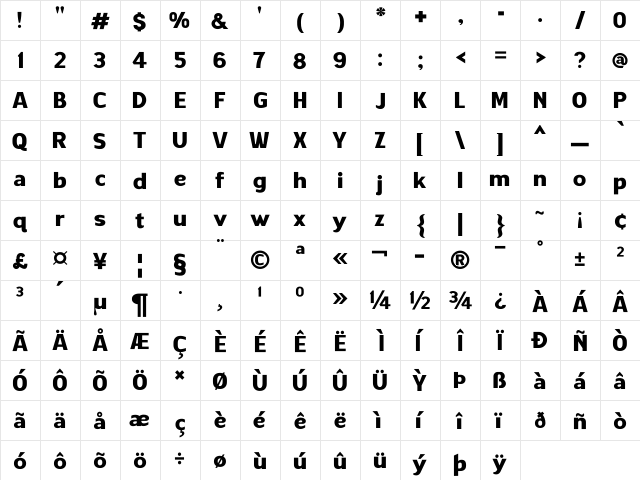
ALEWISDODI ExtraBold
| Foundry | Chung deh Tien |
| Designer | Unicode platform by Chris Harvey http://www.languagegeek.com/) & typeface design by Chung deh Tien |
Design Context for ALEWISDODI Typeface
ALEWISDODI offers clean, dependable letterforms without strong stylistic allegiance, making it a practical choice for designers who need flexibility. Its bold stroke weight gives it real presence on the page.
Pro Tip: Pair ALEWISDODI with a font of contrasting weight or personality to build a more expressive typographic hierarchy.